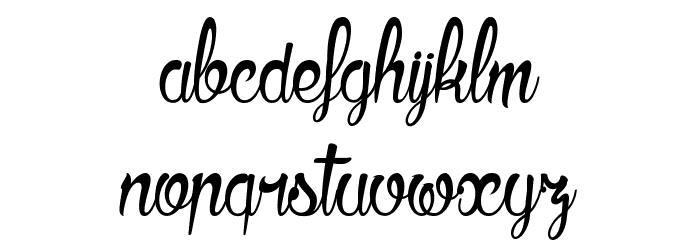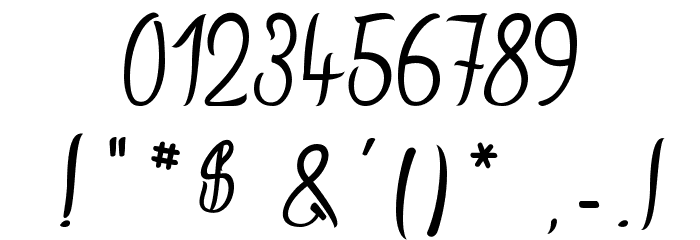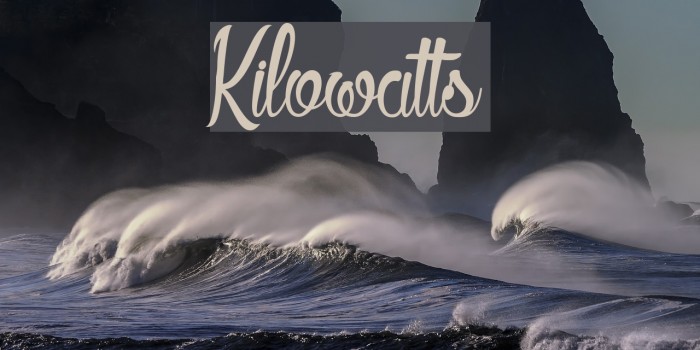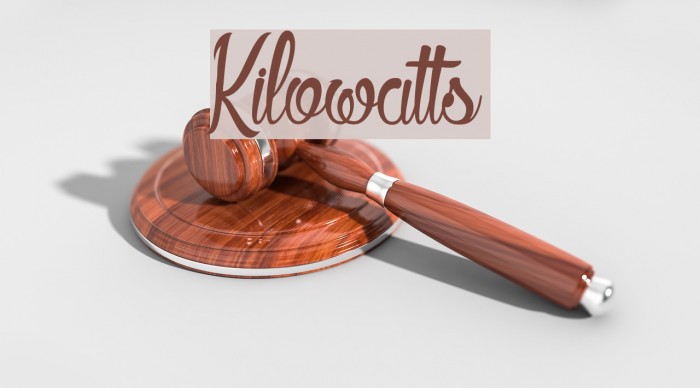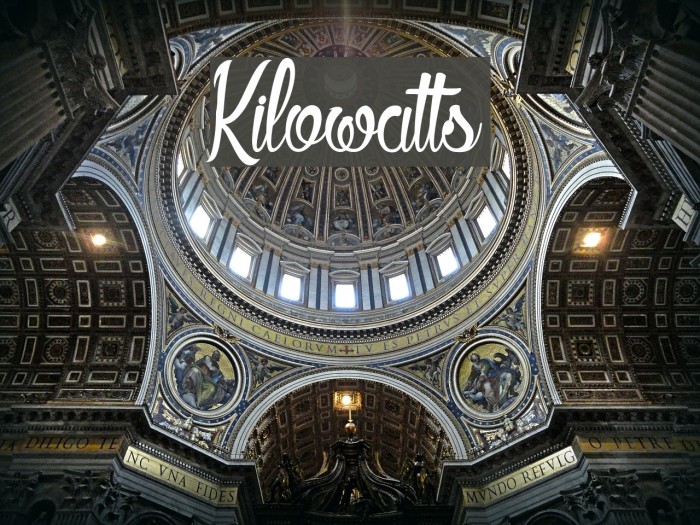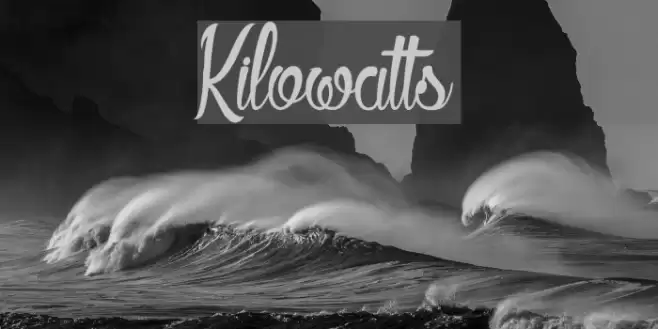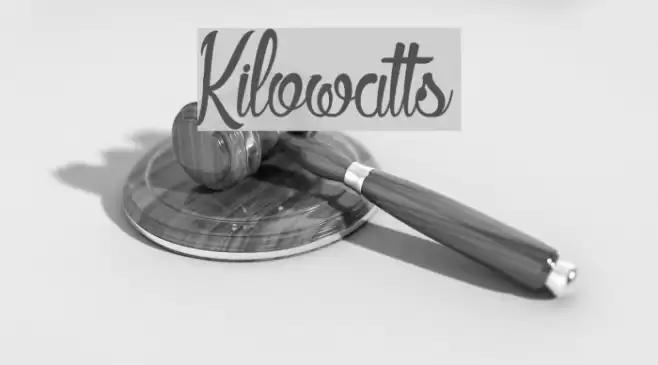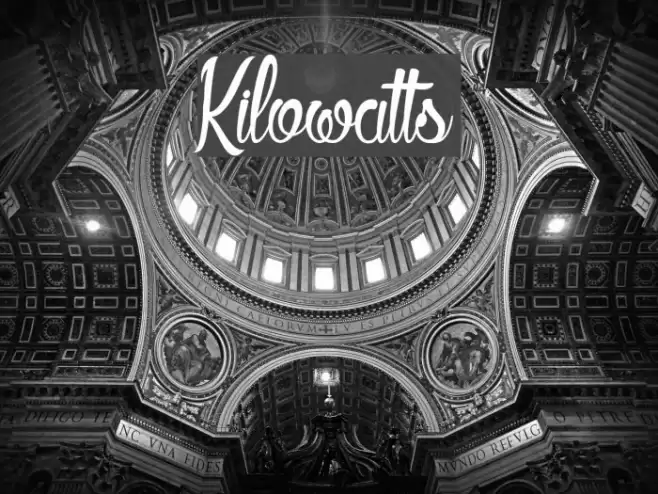
Kilowatts Font
This font features a dynamic and flowing script style, characterized by its elegant and cursive letterforms. The uppercase letters are bold and sweeping, with distinctive loops and curves that give a sense of movement and grace. The lowercase letters maintain a consistent flow, with smooth connections between characters, enhancing readability while preserving a handwritten feel. Numbers and special characters are designed to complement the overall aesthetic, with similar fluid strokes and artistic flair. This font exudes a sense of sophistication and creativity, making it suitable for a variety of design applications.
A dynamic and elegant script font with flowing, cursive letterforms.
- Proposed Projects: Ideal for wedding invitations, branding, logo design, and elegant stationery.
- Category: Script
- Overall Style: Elegant
- Use Case: Logos, Invitations, Branding